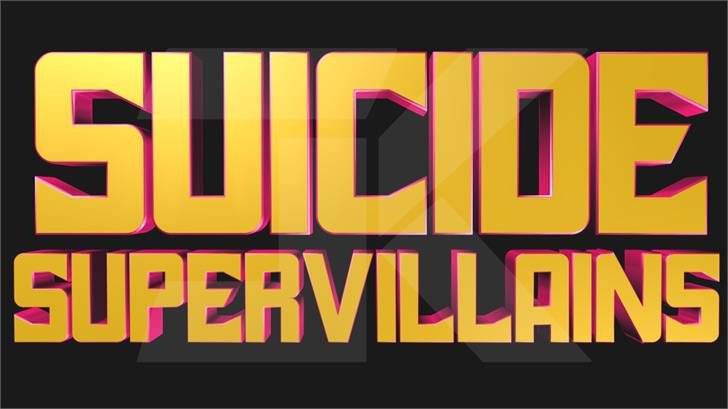
Suicide Super Villains Display Font
FanFont of the DC Extended Universe ‘The Suicide Squad’ logo to be released in 2021, and the comics ‘Suicide Squad’ Volume 1 released in 1987 by DC Comics.